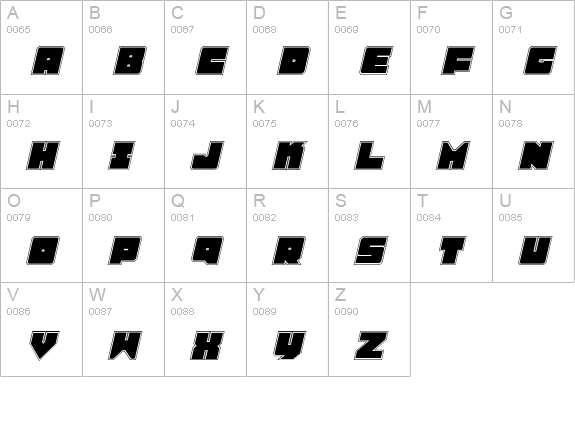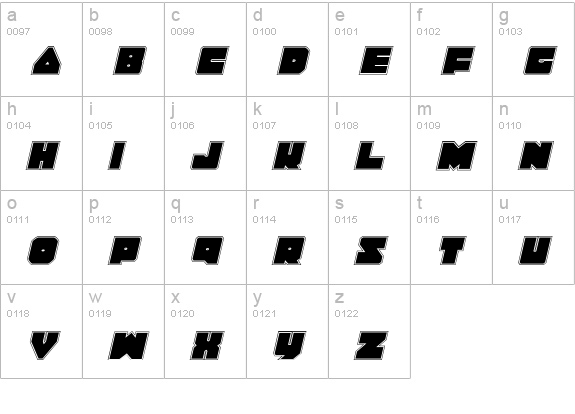
Lobo Tommy Pro Italic is a distinctive, italic variant in the Lobo typeface family \xE2\x80\x94 well suited to design and typography projects.
Lobo Tommy Pro Italic font is a sleek and modern typeface designed to make a bold statement with its elegant and distinctive look. The italic style adds a touch of sophistication and flair, making it perfect for projects that require a touch of creativity and style. This font is freely available to download at FontsMarket.com, making it easy for designers and creatives to access and use in their projects without any hassle. Whether you're working on branding, advertising, or any other type of design project, Lobo Tommy Pro Italic font is sure to make a lasting impression with its unique and eye-catching style.